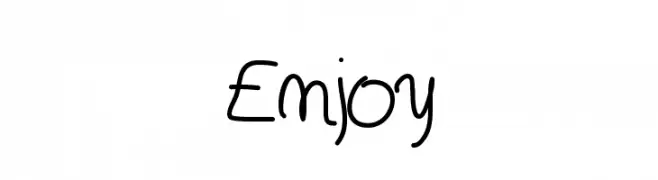
Decorative floral stencil font with unique plant illustrations for each character.
A decorative script font with a ribbon-like, flowing style and high contrast strokes.
A bold, geometric font with a retro flair, featuring blocky uppercase and narrow lowercase letters.
Intricate decorative elements with swirls, flourishes, and heart motifs.
A playful, handwritten font with smooth, rounded strokes and a casual appearance.
A bold, distressed font with a grunge, weathered appearance.
A bold, distressed font with a grunge, textured appearance.
A bold, distressed font with a grunge aesthetic and tight spacing.
An ornate script font with grunge splatter effects and elaborate flourishes.
An ornate and decorative font with intricate flourishes, perfect for elegant and vintage-themed projects.
A bold, dramatic serif font with sharp serifs and unique flourishes.
A modern, geometric font with thin strokes and artistic design.
Ornamental floral stencil illustrations with bold, detailed silhouettes.
A decorative font with intricate dragon motifs forming each character.
A playful, alien-themed font with quirky patterns and textures.
A decorative font with beach-themed illustrations for each character.
A decorative dingbat font with assorted drink and beverage illustrations.
A playful and decorative font featuring dinosaur-like creatures as characters.
A playful and whimsical collection of hand-drawn doodles and handwritten elements.
A playful and whimsical set of hand-drawn doodles with bold outlines.
A playful, decorative font with whimsical serifs and exaggerated curves.
A modern, geometric font with bold, striped patterns and angular forms.
A bold, shattered glass effect font with a dynamic and decorative style.
A playful, hand-drawn set of summer-themed symbols and shapes.